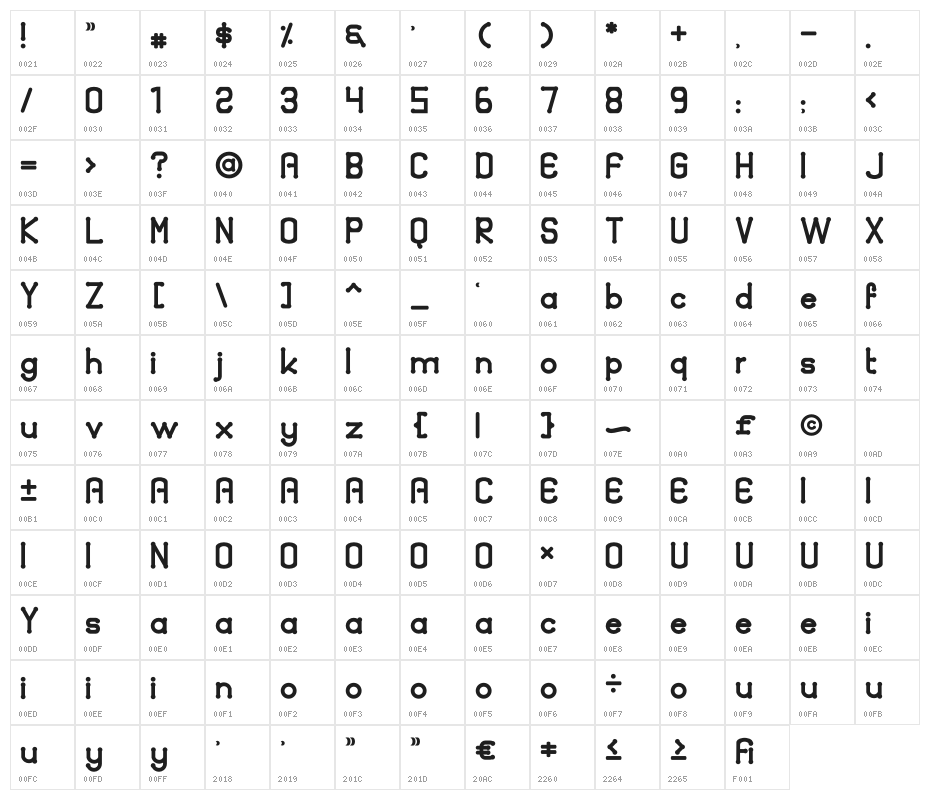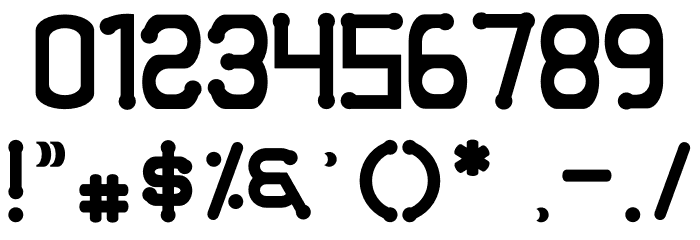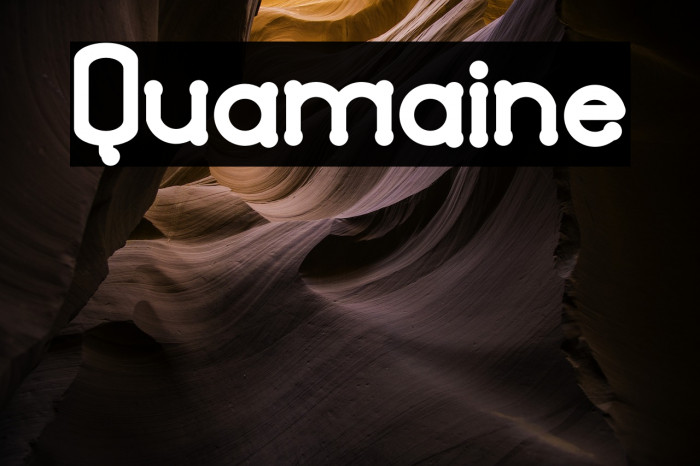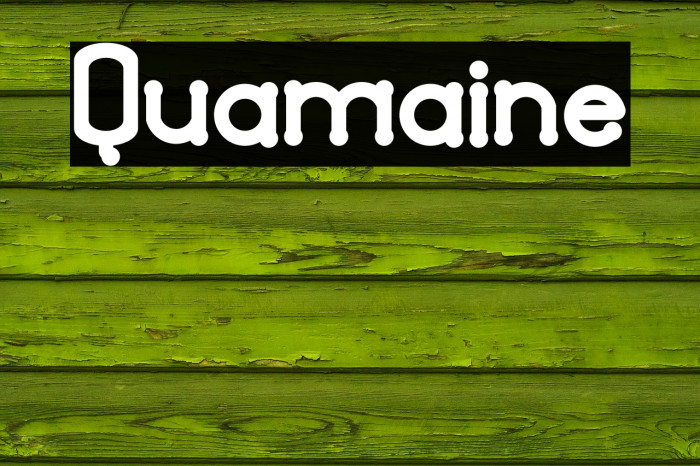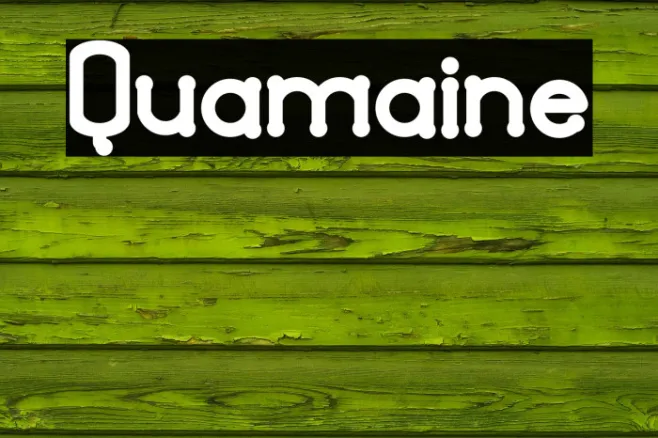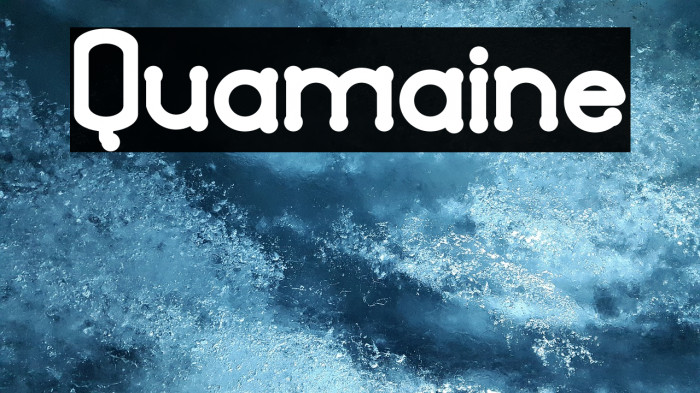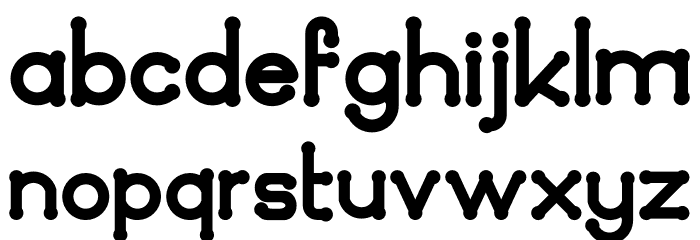
Quamaine Font
Quamaine Description
This font features a bold, rounded style with a modern and playful appearance. The characters are uniformly thick, providing a consistent and cohesive look across both uppercase and lowercase letters. The rounded edges give it a friendly and approachable feel, making it suitable for various creative projects. The numerals and special characters maintain the same rounded and bold characteristics, ensuring a harmonious design throughout. Its unique style makes it stand out, yet it remains highly legible, making it versatile for both digital and print media.
| Proposed Projects | Ideal for children's books, playful branding, posters, and digital media. |